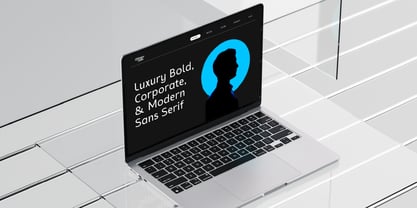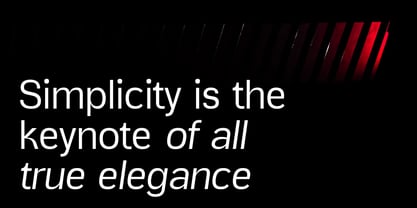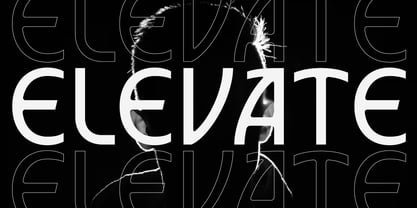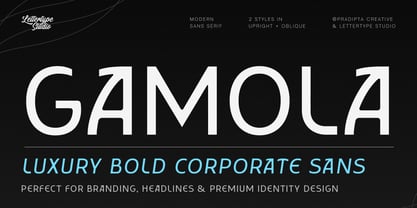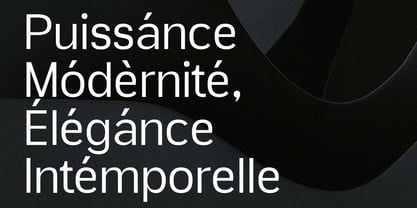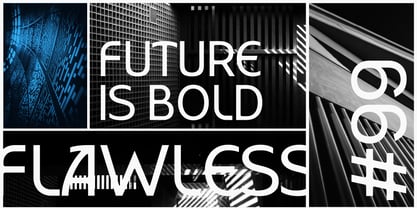
Gamola
by Lettertype Studio
The Gamola Font Family was designed by Diki Pradipta Tri Atmojo and published by Lettertype Studio. Gamola contains 2 styles and family package options. More about this family
Gamola is a Luxury Bold Corporate Sans Serif is a high-impact typeface created for premium branding and bold corporate identity. With its clean geometric structure and refined proportions, Gamola brings a strong yet sophisticated feel—ideal for logos, branding kits, tech companies, business presentations, and editorial headlines. Its bold and confident style makes it stand out while maintaining a modern elegance.
Gamola is available in two styles: Upright and Oblique, offering flexibility for different design moods and layouts. It features full uppercase and lowercase letters, numbers, punctuation, and multilingual support with accented characters. Designed for professional use, Gamola is a sleek, modern sans serif font that elevates your brand presence.